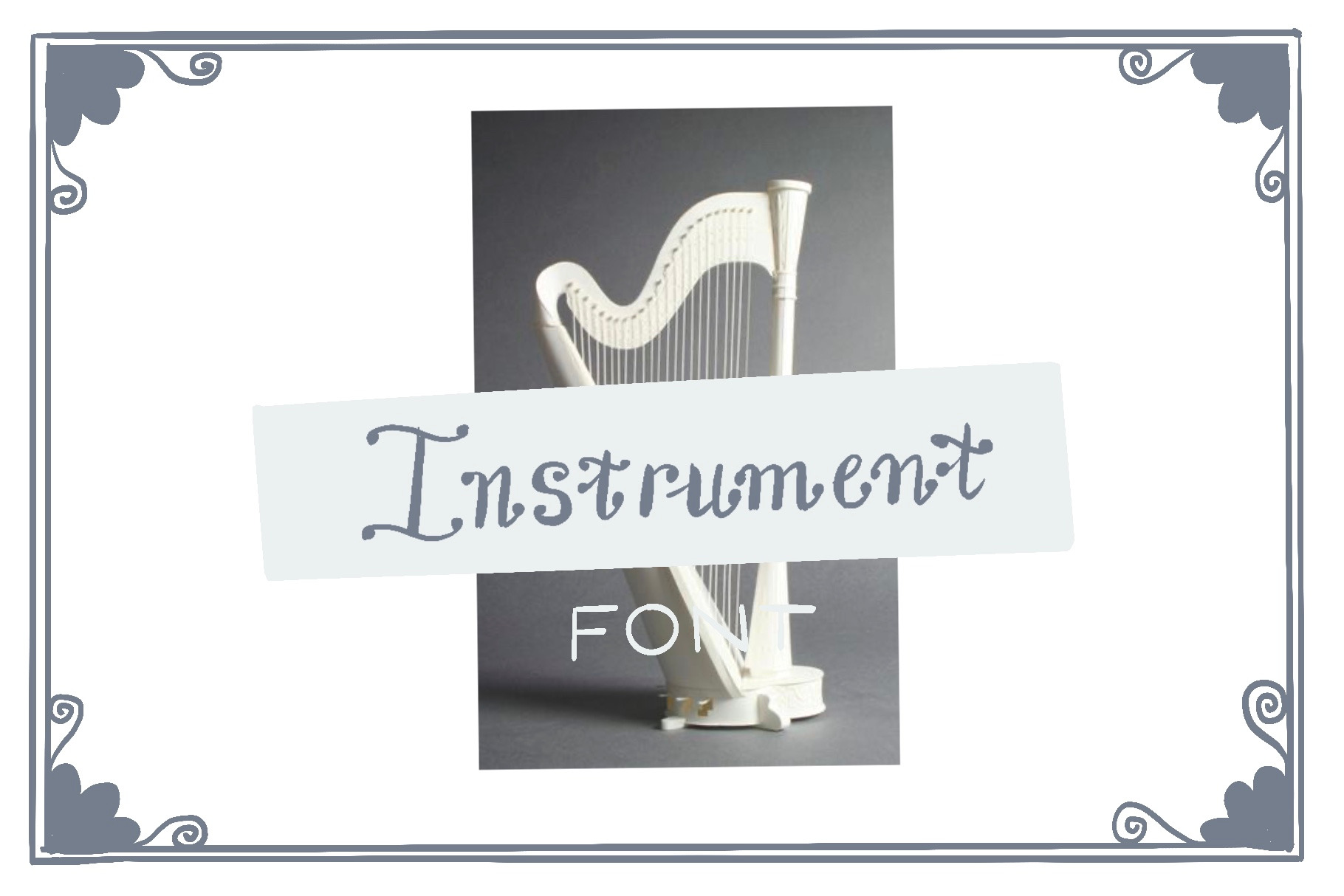
Instrument font
INTRODUCING
Instrument - serif font family helps you create many alternatives in your creative projects Instrument comes together just like different cultures meet in one place. It is a timeless font family with its rich styles, multilingual support and modern structure.
This font comes with uppercase, lowercase, punctuation marks, symbols and numbers, ligatures, and multilingual options.
Well suited for books and magazines, editorials, headlines, websites, logos, branding, advertising and more. This font family can meet your needs in all modern and classic creative projects.Script